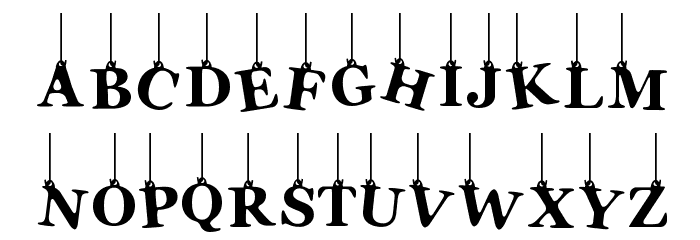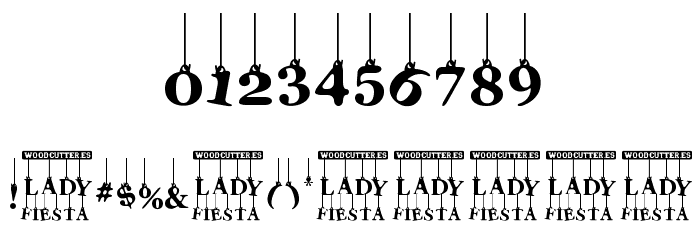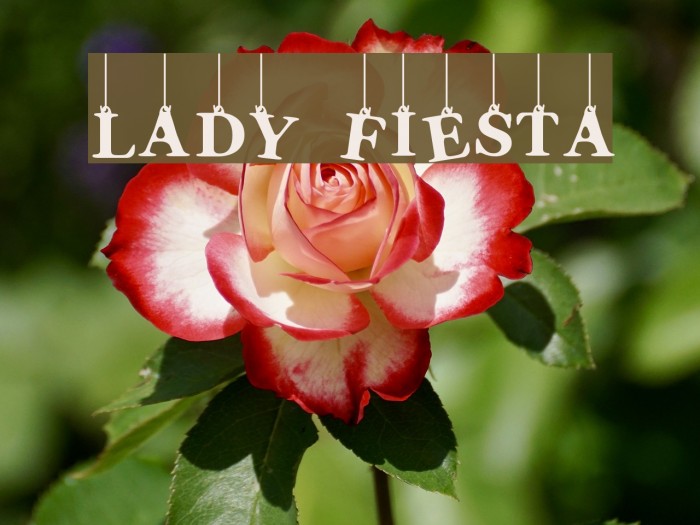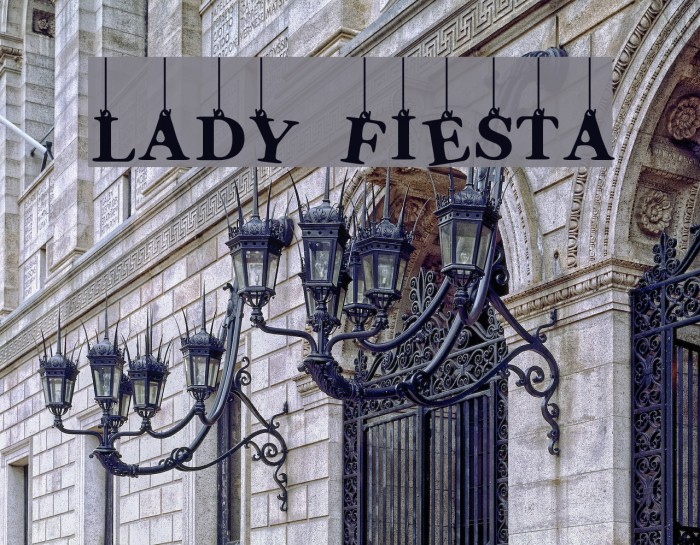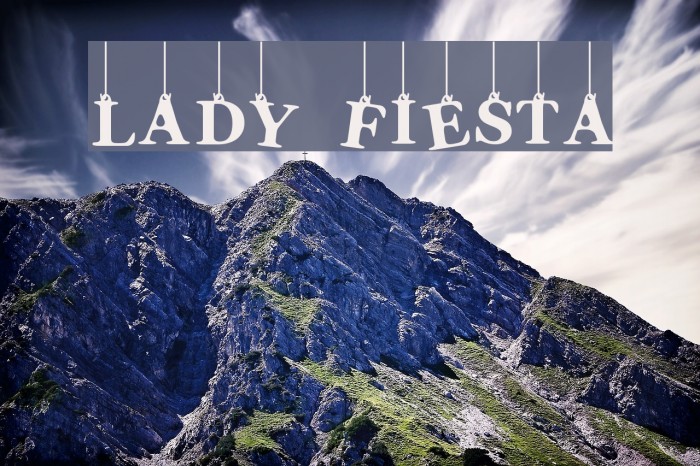
Lady Fiesta Font
This font features a playful and decorative style, with each character appearing to hang from a string, giving it a festive and whimsical appearance. The uppercase letters are bold and slightly tilted, adding to the dynamic and lively feel. The lowercase letters maintain the same playful theme, ensuring consistency across the alphabet. The numerals are equally bold and maintain the same hanging design, making them stand out. Special characters are included, each designed to match the overall festive theme. This font is perfect for projects that require a fun and eye-catching typeface.
A playful, decorative font with characters that appear to hang from strings.
- Proposed Projects: Ideal for party invitations, festive banners, children's event posters, and any project needing a whimsical touch.